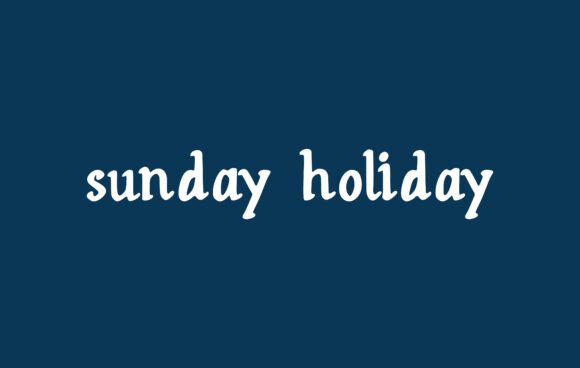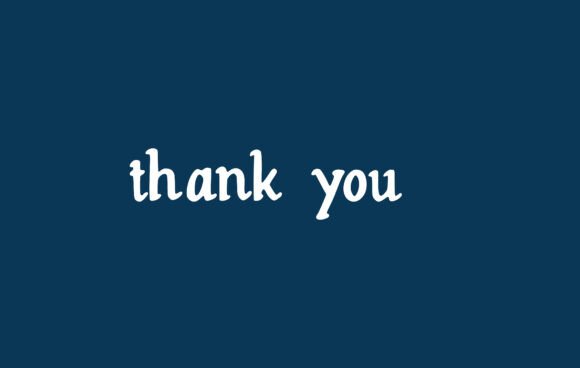
Introduction to Handritn Font
Handritn font is an authentic handwritten font with a romantic touch.
Key Features of Handritn Font
Why Choose Handritn Font?
Handritn Font offers exceptional quality and versatility, making it a valuable addition to your design toolkit. Whether you’re creating for personal projects or commercial use, Handritn Font delivers professional results.